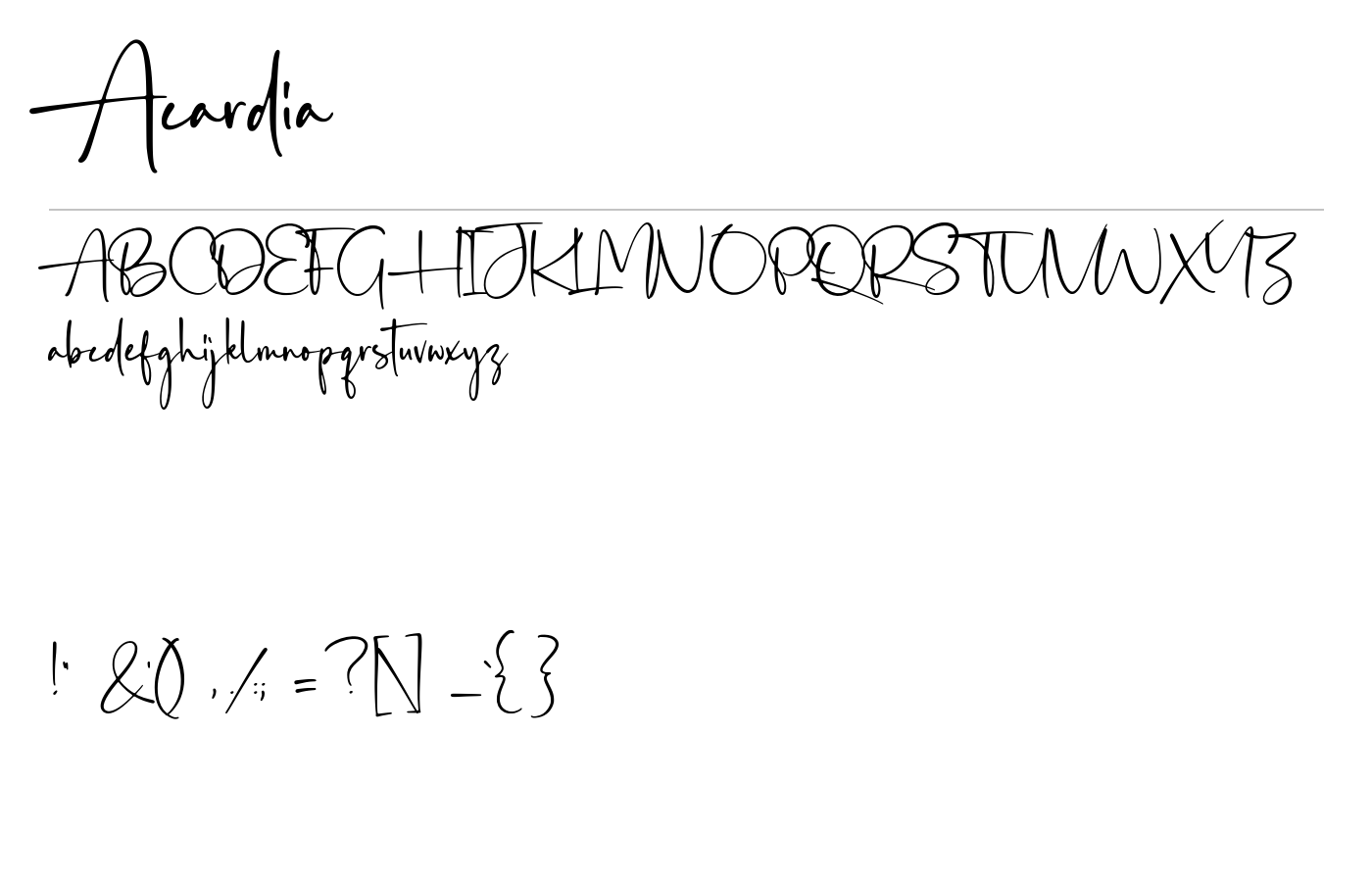
Acardia is a casual, handwritten script font with a light, airy feel and organic, playful strokes. Its thin lines and loose, flowing letterforms express a personal, creative touch, making it ideal for invitations, branding, or editorial designs that want to convey warmth and authenticity. This font works well where a modern yet approachable style is needed to add personality without overwhelming the message.
Acardia Font
About Acardia Font
| Designer | Annas Alam Yahya |